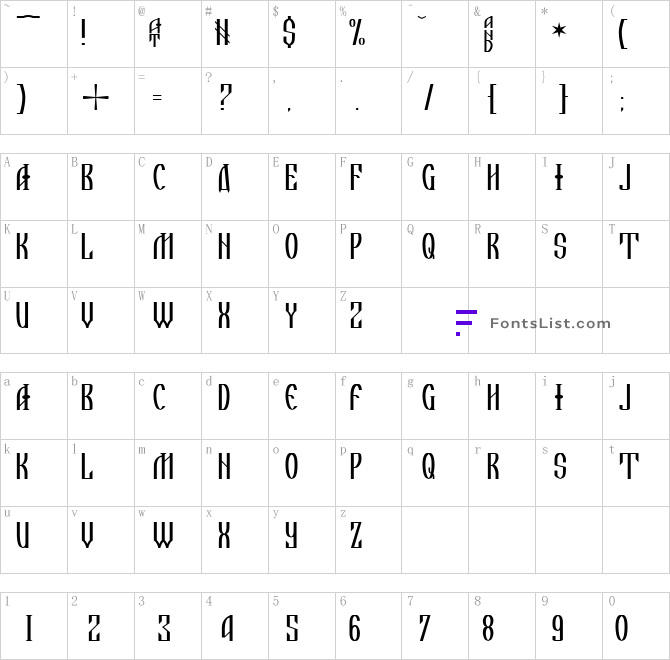
- Font Name:A La Russ
A-La-Russ.ttf is a very beautiful artistic font, A-La-Russ.ttf is widely used in the design and printing of various books and pictures,A-La-Russ.ttf has a strong visual impact,A-La-Russ.ttf is a commonly used font in newspapers, magazines and books, and is used in posters, e-commerce Poster design, store design, logo design, font design and other fields.A-La-Russ.